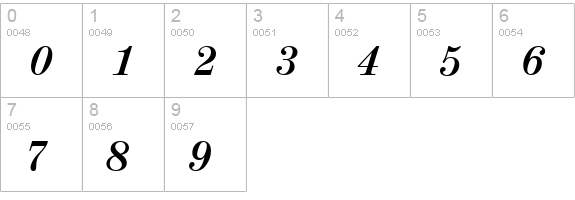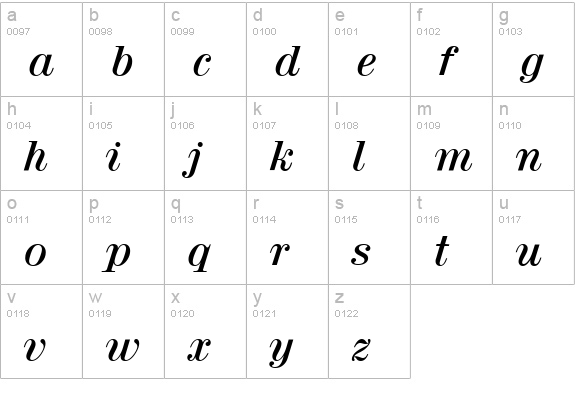
ValenciaSerial-BoldItalic Font Details
ValenciaSerial-BoldItalic is a stylish and elegant font that exudes confidence and sophistication. Its bold and italic design adds a touch of modernity to any project, making it perfect for headlines, logos, and branding materials. The unique curves and sharp angles of ValenciaSerial-BoldItalic create a sense of drama and flair, making it stand out from the crowd. The best part? ValenciaSerial-BoldItalic is available for free download at FontsMarket.com. This means you can easily access this stunning font and use it in your designs without any cost. Whether you're a professional designer looking to elevate your projects or a hobbyist wanting to add a touch of creativity to your work, ValenciaSerial-BoldItalic is the perfect choice. Download it today and see the difference it can make in your designs.